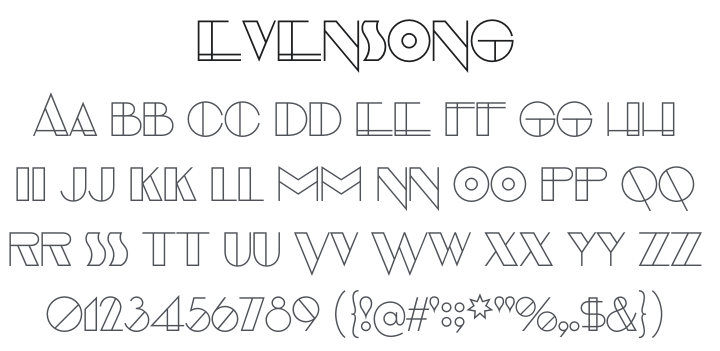
Evensong Font
About Evensong
Evensong is an art deco geometric typeface. While extreme thick/thin letters are common, Evensong stands out by making dramatic choices. Deliver your message with stylistic flair. You can use the Solid and Hollow styles independently, or you can stack layers of Solid and Fill. Experiment with different color combinations and layers. Most Latin-based European, Vietnamese, Greek, and most Cyrillic-based writing systems are supported.